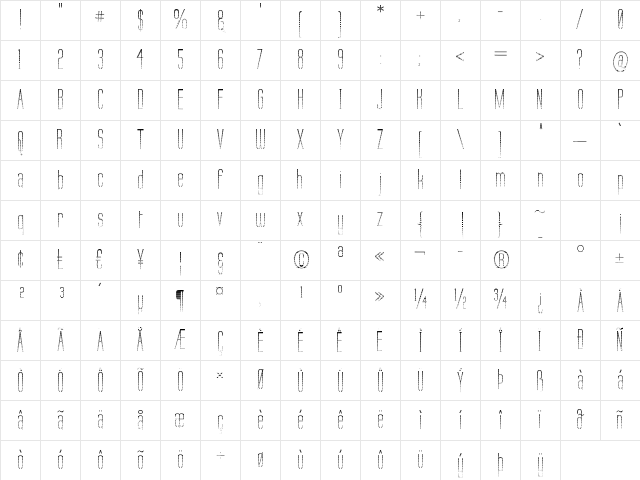
Labtop Tartan Regular
Design Context for Labtop Tartan
Labtop Tartan is a composed and adaptable typeface that performs quietly and consistently across a wide range of design contexts.
Pro Tip: Use Labtop Tartan in both headline and body roles to test its range before committing to a single application.